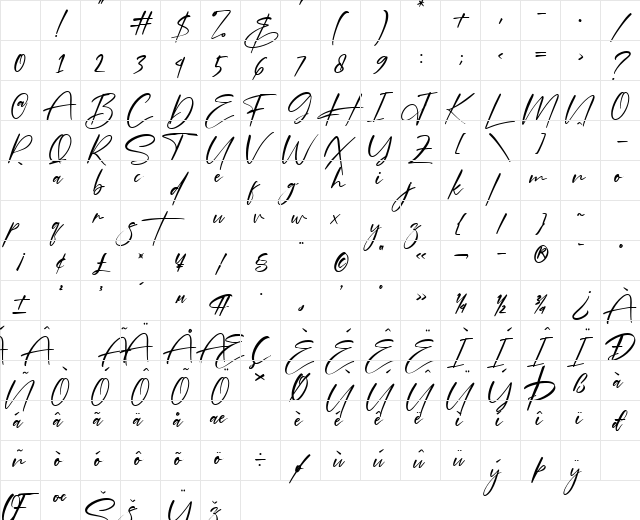
Complete Sothardjo Regular glyph index. Displaying only characters natively supported by Sothardjo Regular font.
Sothardjo is a composed and adaptable typeface that performs quietly and consistently across a wide range of design contexts.